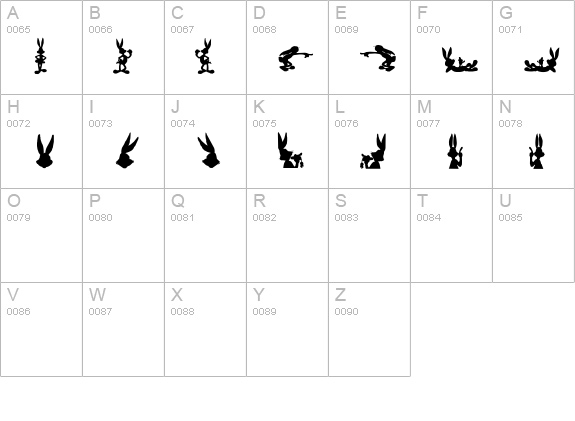
Introducing lpbunnies1 font, a whimsical and charming typeface perfect for adding a touch of playfulness to your designs. This delightful font features adorable bunny illustrations that will surely bring a smile to anyone's face. Whether you're working on a children's book, greeting cards, or branding materials, lpbunnies1 font is sure to add a touch of magic. The best part? lpbunnies1 font is available for free! You can download this enchanting font at FontsMarket.com and start incorporating its joyful vibe into your projects today. Embrace the cuteness of lpbunnies1 font and let your creativity hop to new heights!